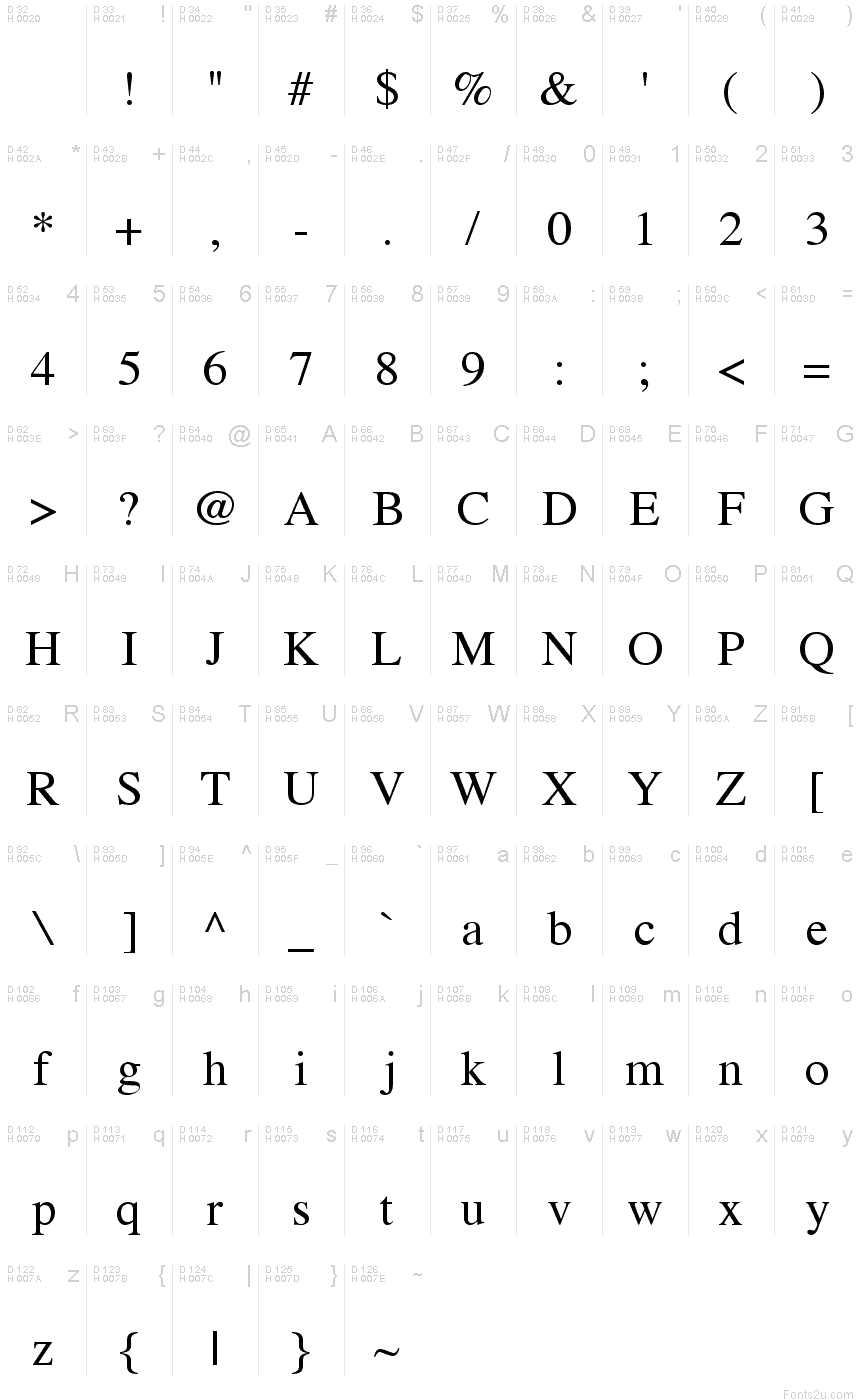
VremyaFWF from Casady & Greene, Inc. is a free high-contrast serif display font marked by substantial vertical strokes, fine hairlines, crisp tapered serifs, and a stately, measured silhouette. Its broad curves remain open and generously proportioned.
Magazine covers are its strongest setting, where the dramatic stroke changes lend fashion or cultural titles an assured voice. It can also shape refined packaging, theater posters, and literary event materials. Across these uses, the contrast and expansive curves link literature, performance, and premium goods through a distinctly formal, cultured, slightly theatrical tone.